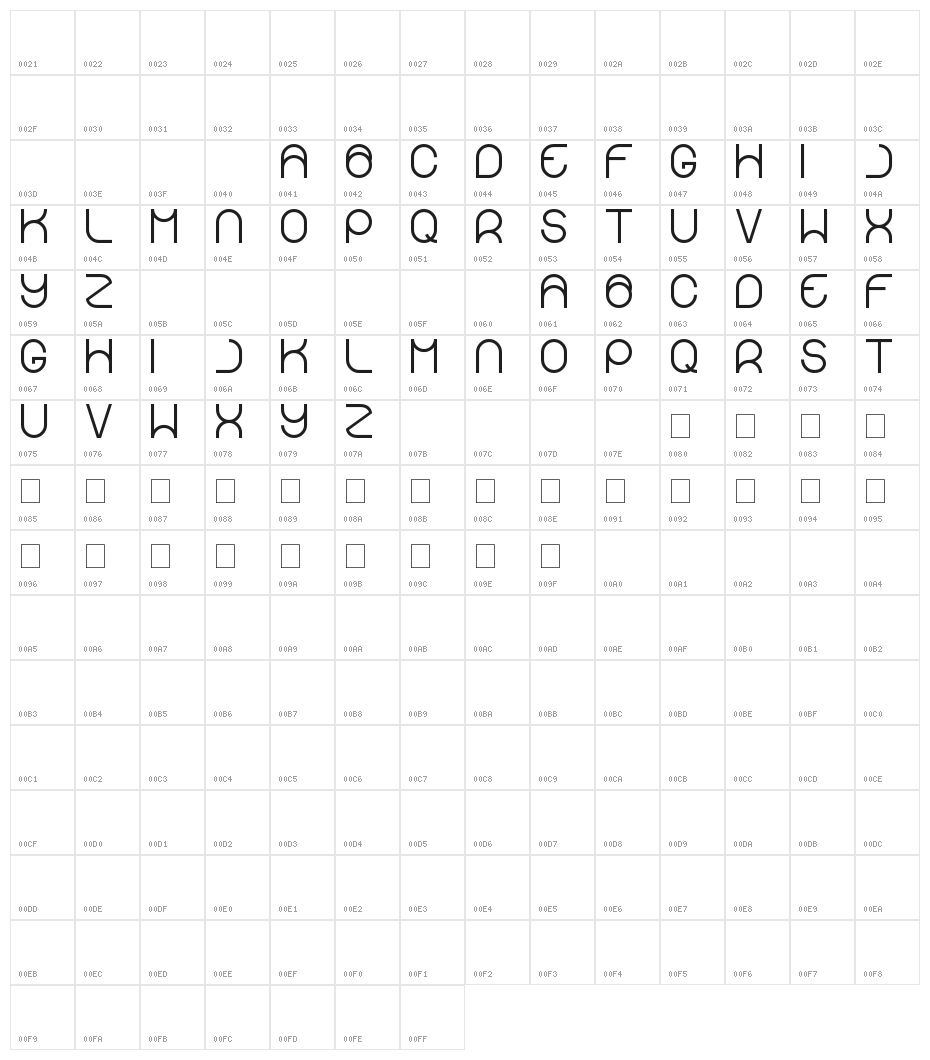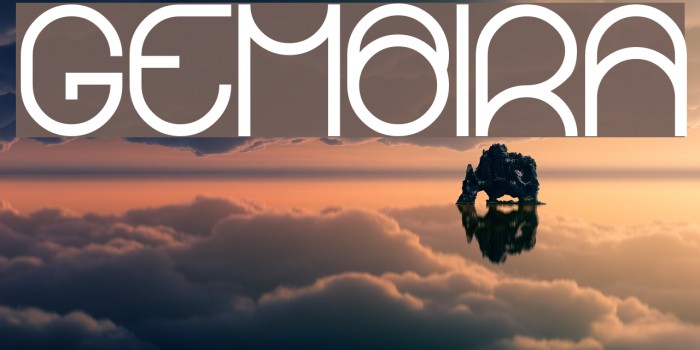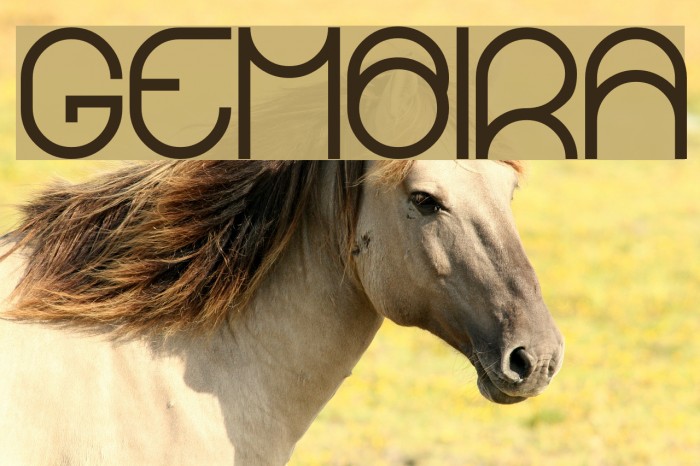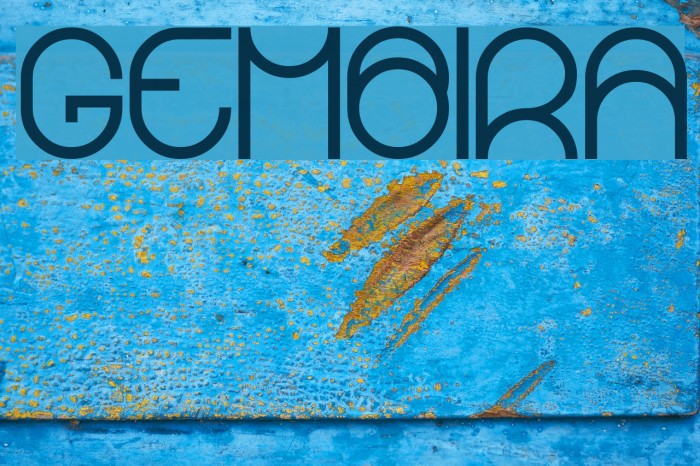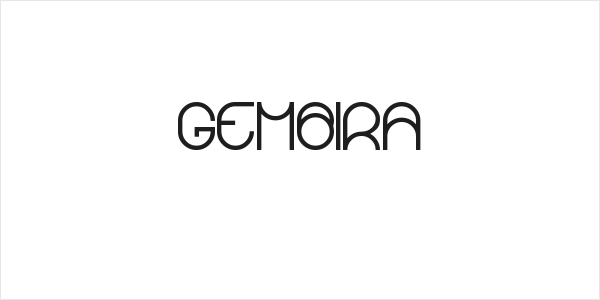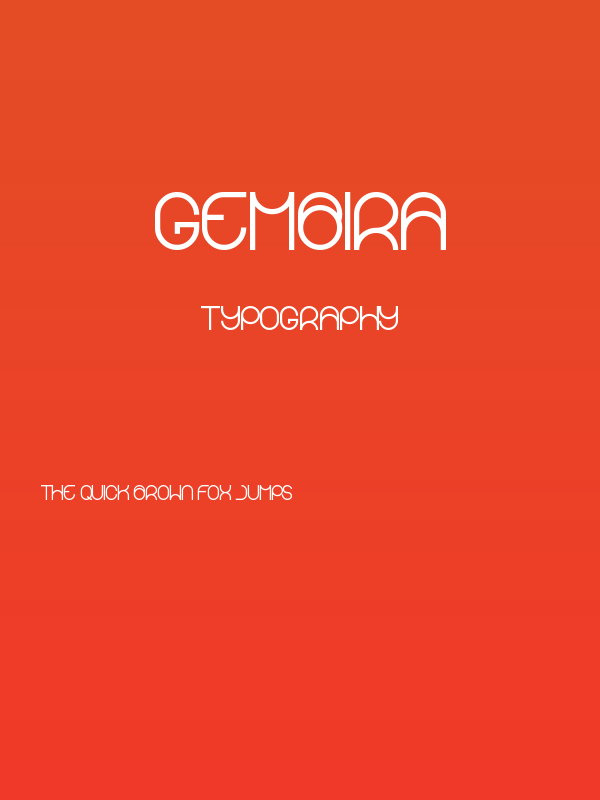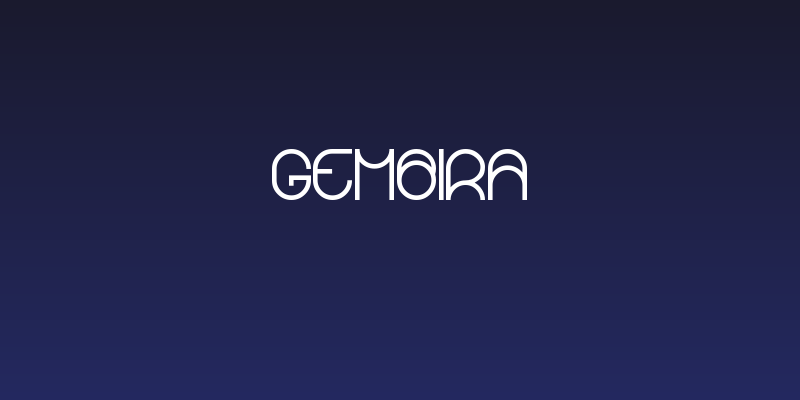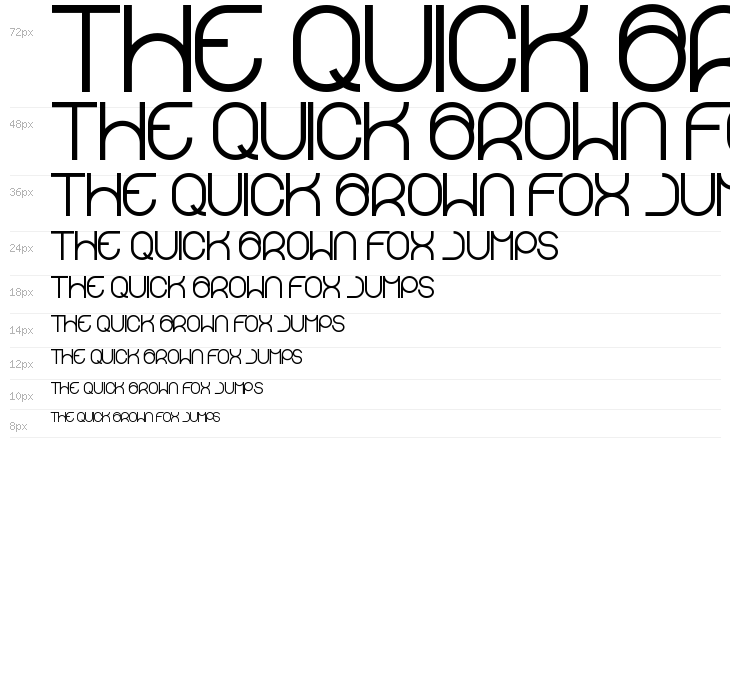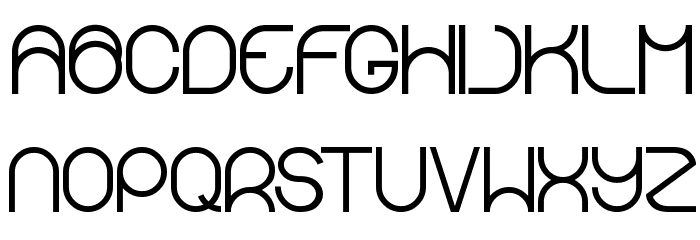
gembira Font
gembira Description
This font features a modern and geometric design with clean, rounded edges and a consistent stroke width. The characters are constructed with a focus on symmetry and balance, creating a futuristic and sleek appearance. The uppercase letters are particularly distinctive, with unique shapes that emphasize circular and linear elements. The overall look is minimalistic yet bold, making it suitable for contemporary design projects.
| Proposed Projects | Ideal for branding, logos, and headlines in tech or modern design projects. |